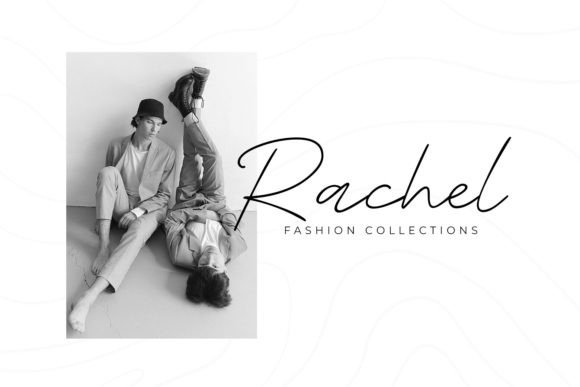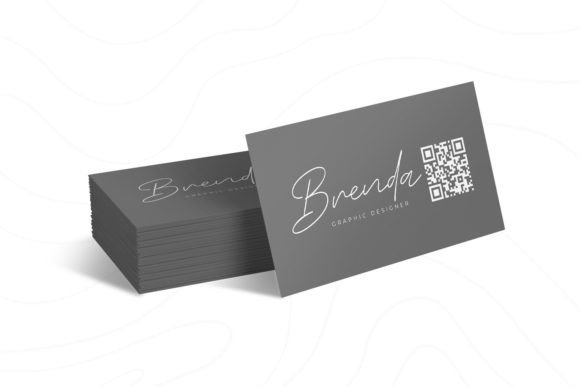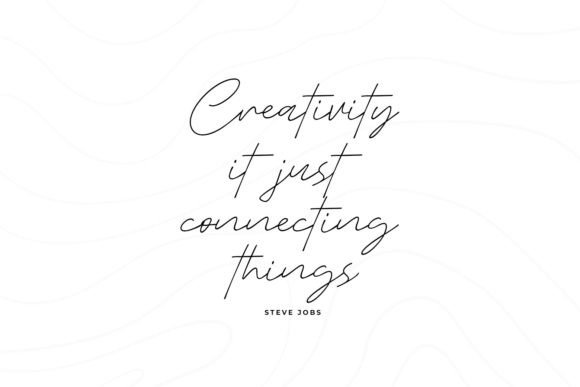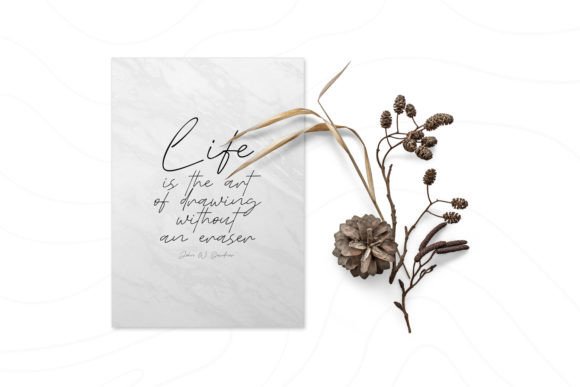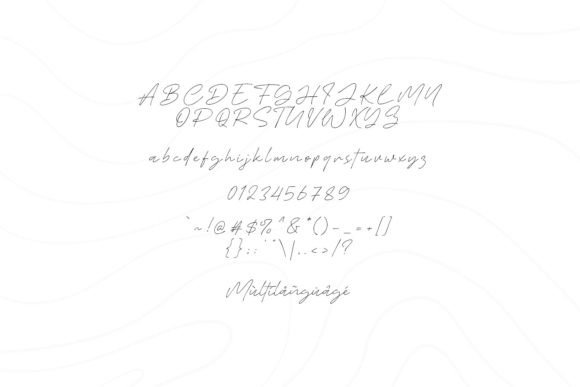
Introduction to Culture Wind Font
Culture Wind is a clean, stylish, modern, and elegant script font perfect for posters, logos, magazines, book covers, banners, and many more.
Get this amazing font, and use it to create lovely designs It can easily be matched to an incredibly large set of projects, so add it to your creative ideas and notice how it makes them stand out.